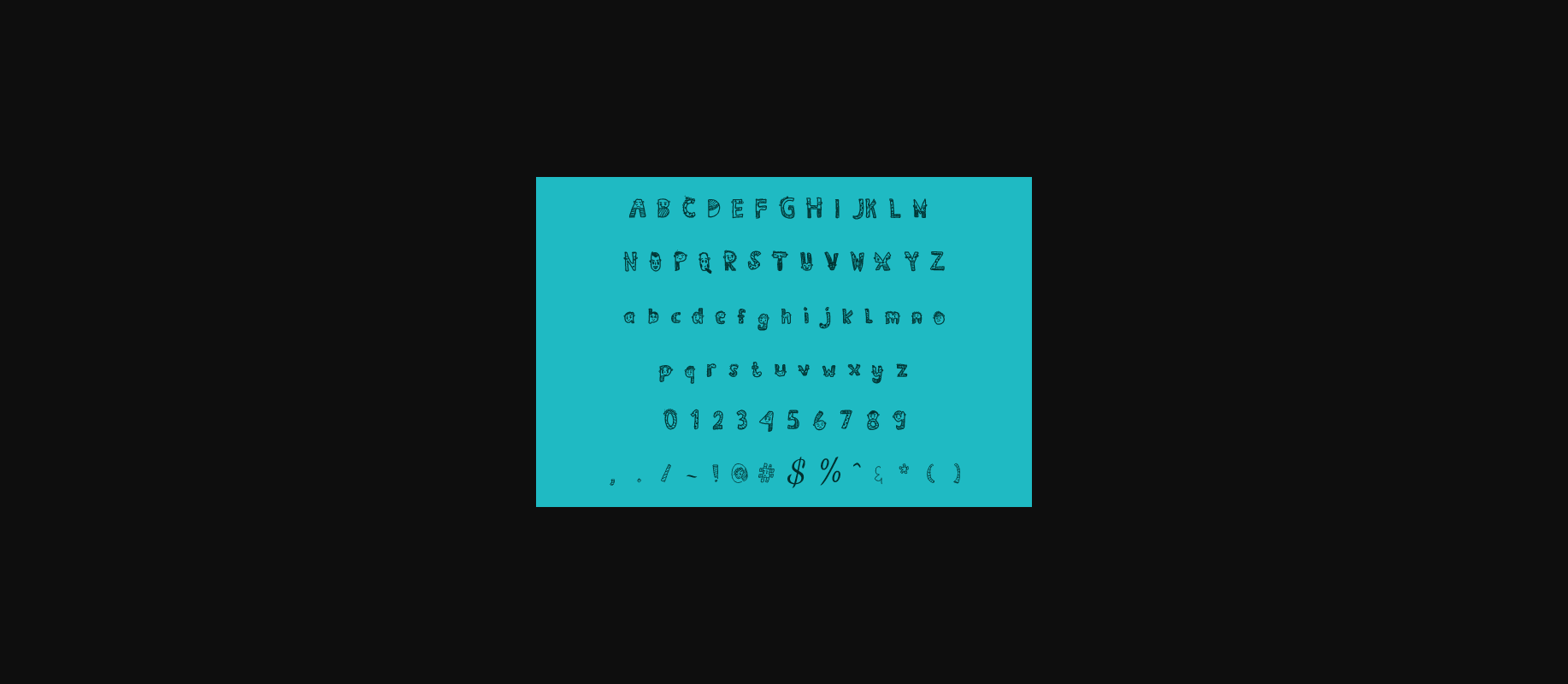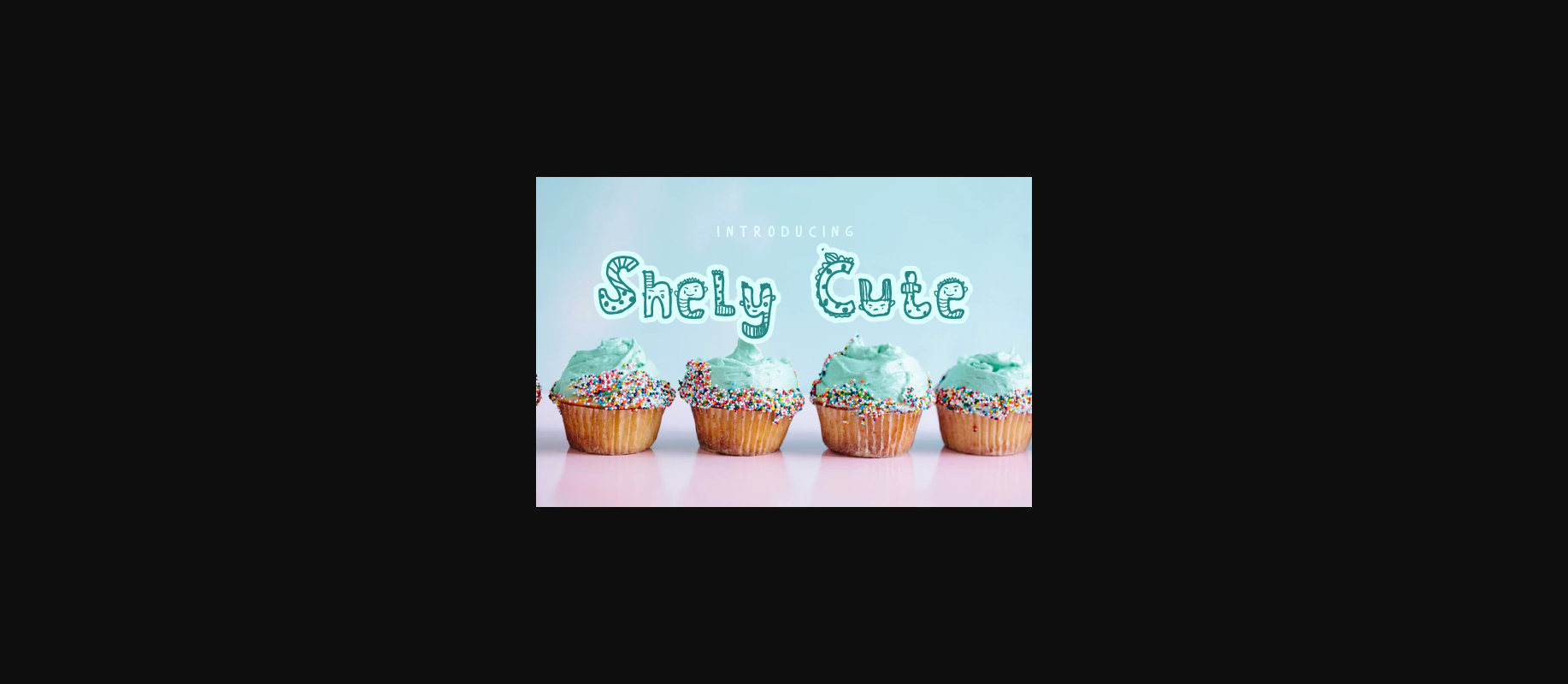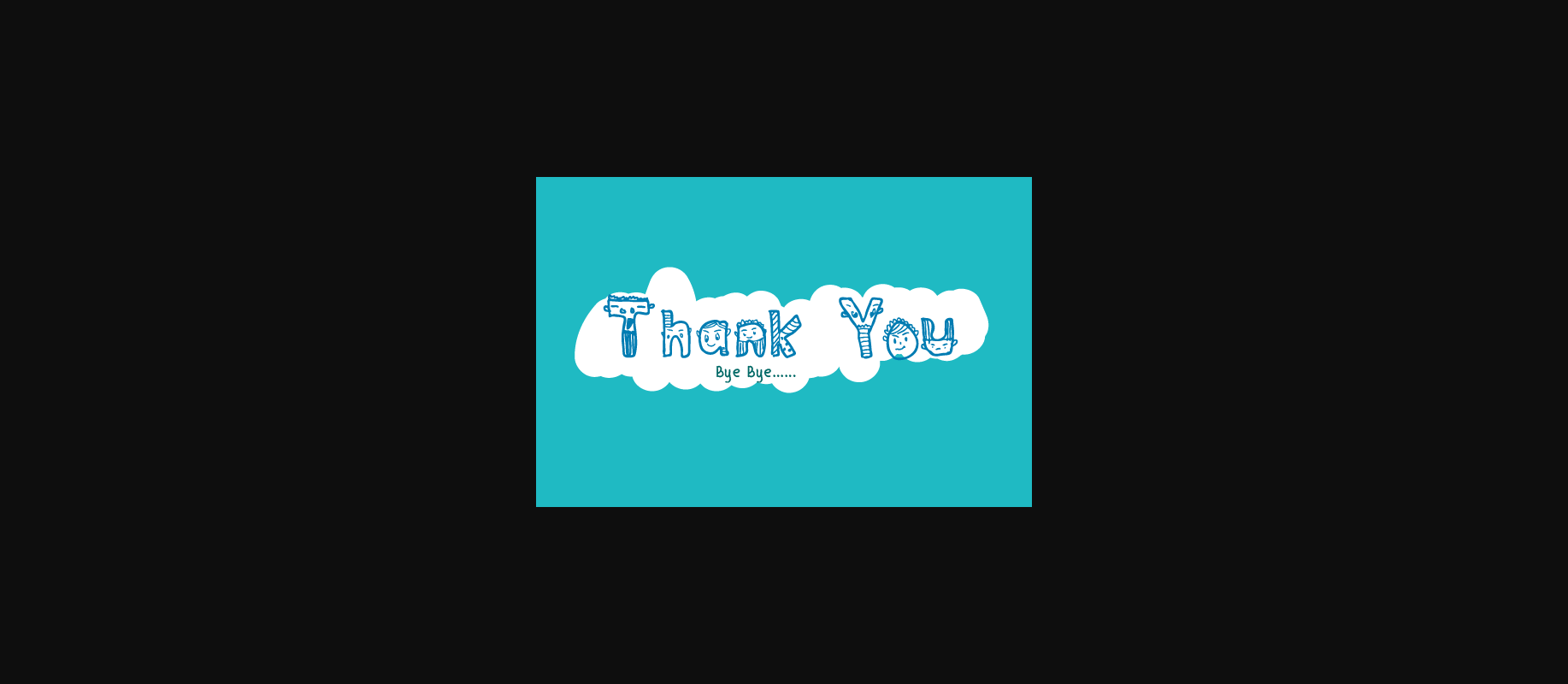
Shely Cute Font
About Shely Cute Font
Shely Cute is an incredibly unique and sweet decorative font. Fall in love with its incredibly versatile style and use it to create spectacular designs!